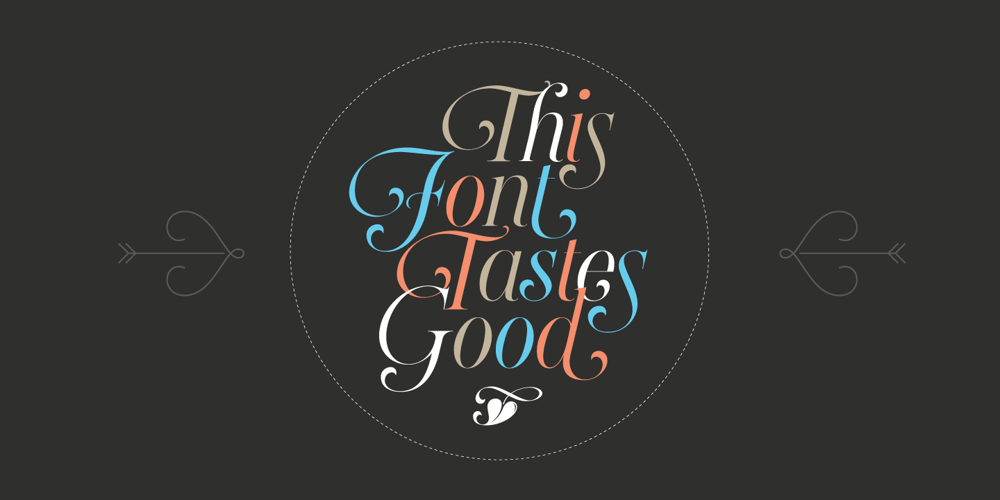
Heroe Font Family was designed by Maximiliano R. Sproviero and published by Sproviero Type. Heroe contains 5 styles and family package options. DESCRIPTION Now my feelings about didones are more than evident. After some years of roman-abstinence (1) I present Heroe, an interesting combination of elegance and sensuality. Heroe, spanish for hero, takes some aspects of roman typefaces to the extreme like my main inspiration, the great Herb Lubalin, did in the majority of his works: Thins turned into hairlines, altered proportions (for display purposes), unique ball terminals, poetic curves and a graceful way of placing them together on a layout. Its classy style makes the font perfect for a wide range of uses. Imagine Heroe Inline (my favorite) dancing over a bottle of perfume; printed on the cover of a fashion magazine; lighting wedding invitations up. Its partner, Heroe Monoline, may help you to make more elaborated pieces of design. Just combine it with Heroe, or Heroe Inline and see how perfect they match. TECHNICAL The difference between Pro and Std styles is the quantity of glyphs. While Pro styles have all the decorative characters available, Standard ones have only the basic set of them. Heroe Monoline Big and Heroe Monoline Small were made for better printing purposes. If you need to print the font in small sizes, then your choice should be Small. Heroe Monoline has the same alternates (and open-type code) as Heroe Pro and Inline, plus some decorative ligatures.